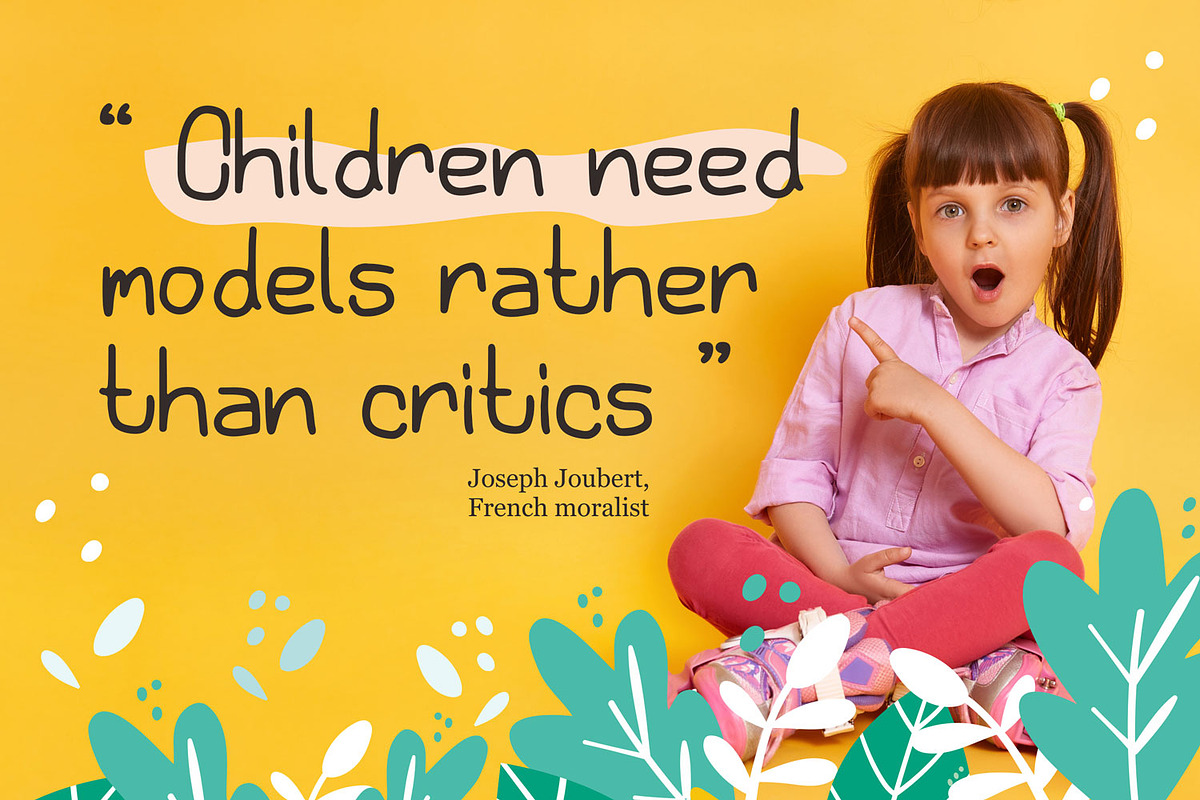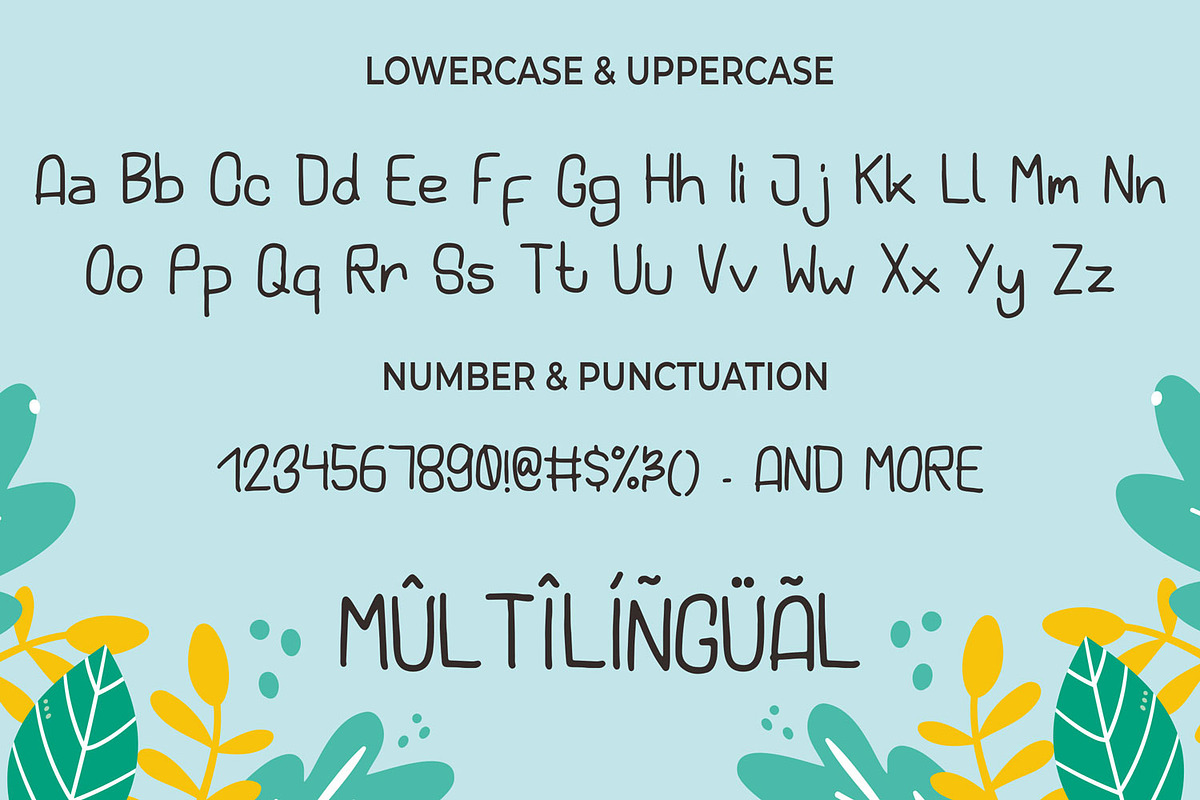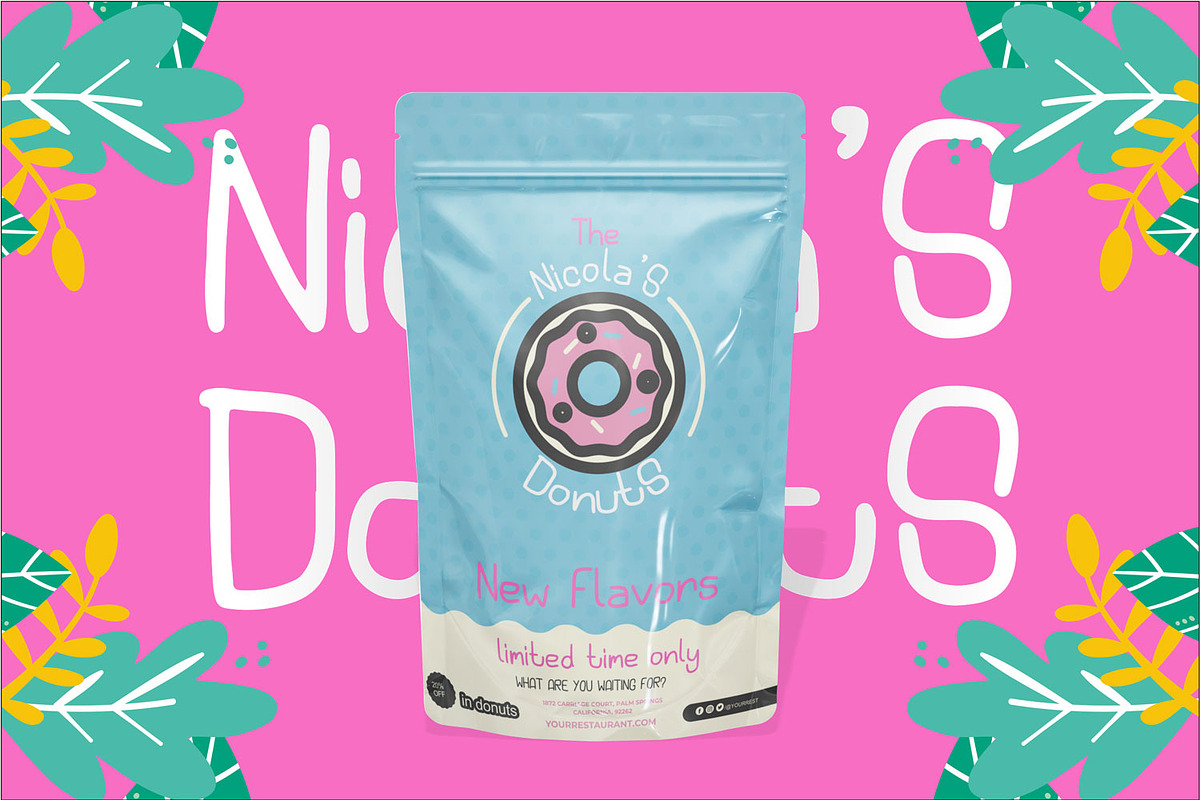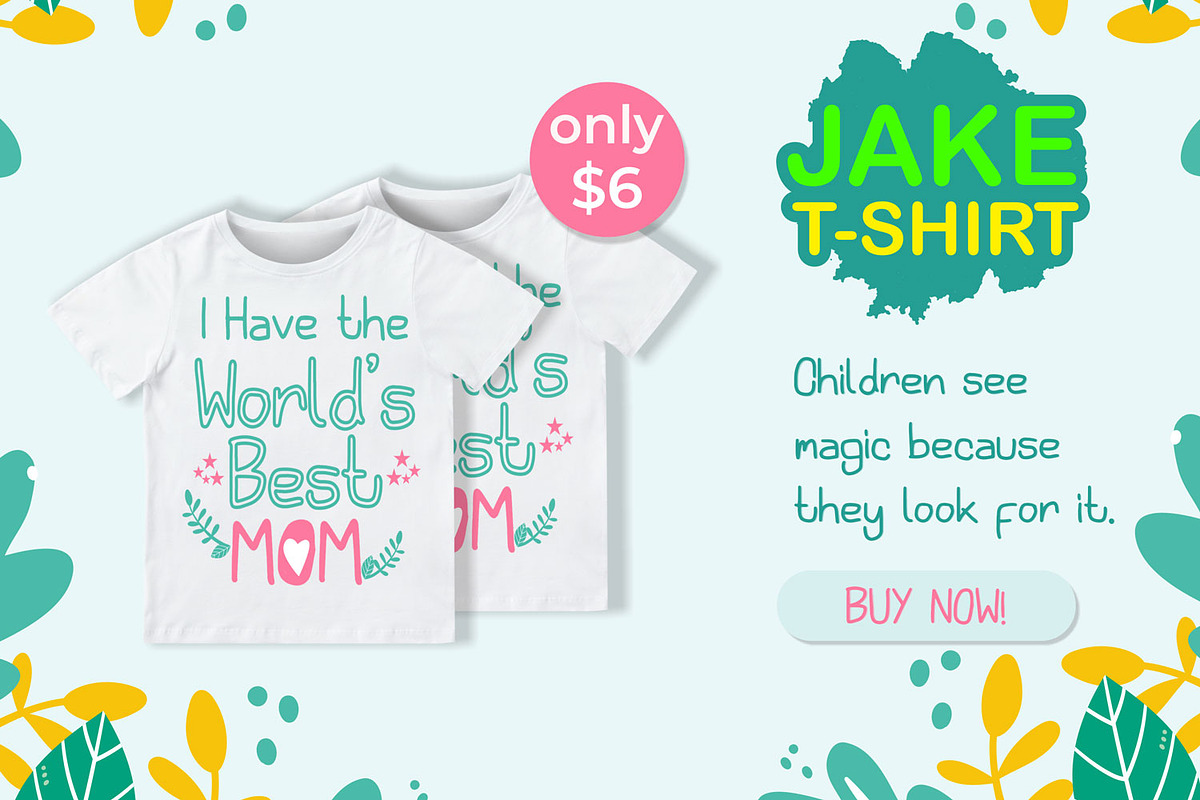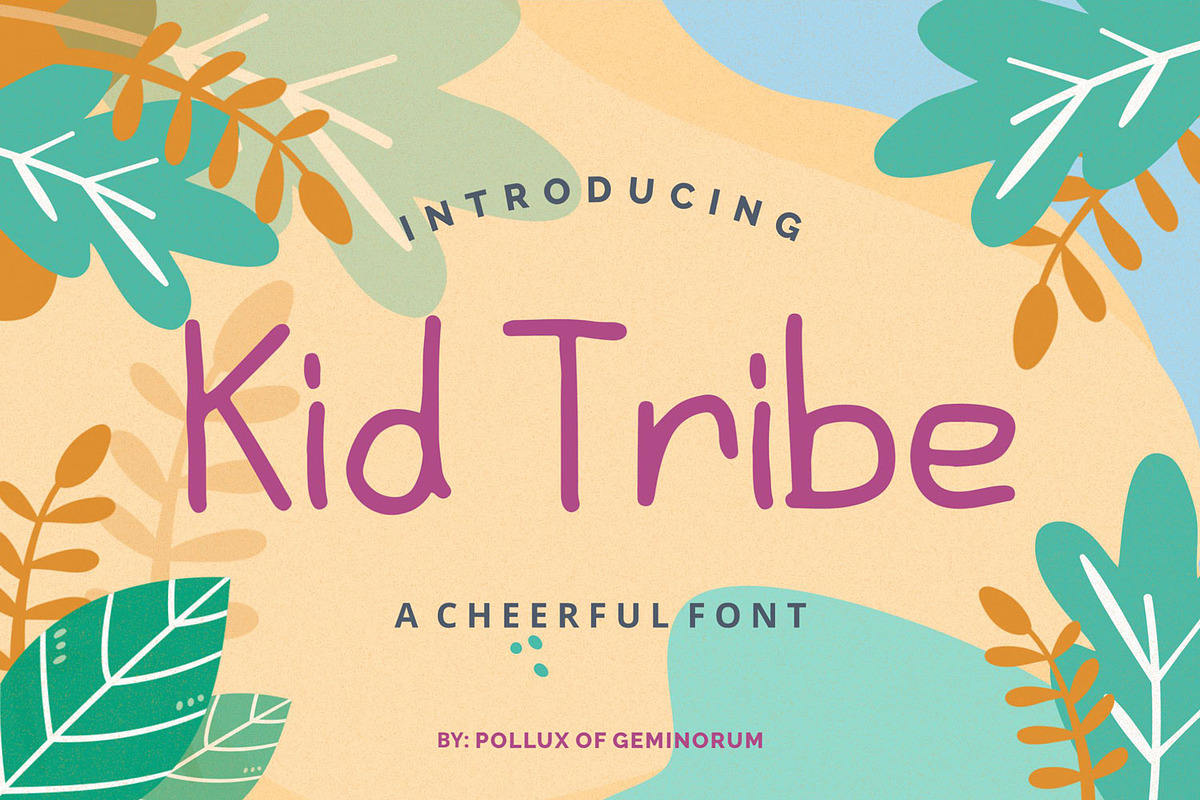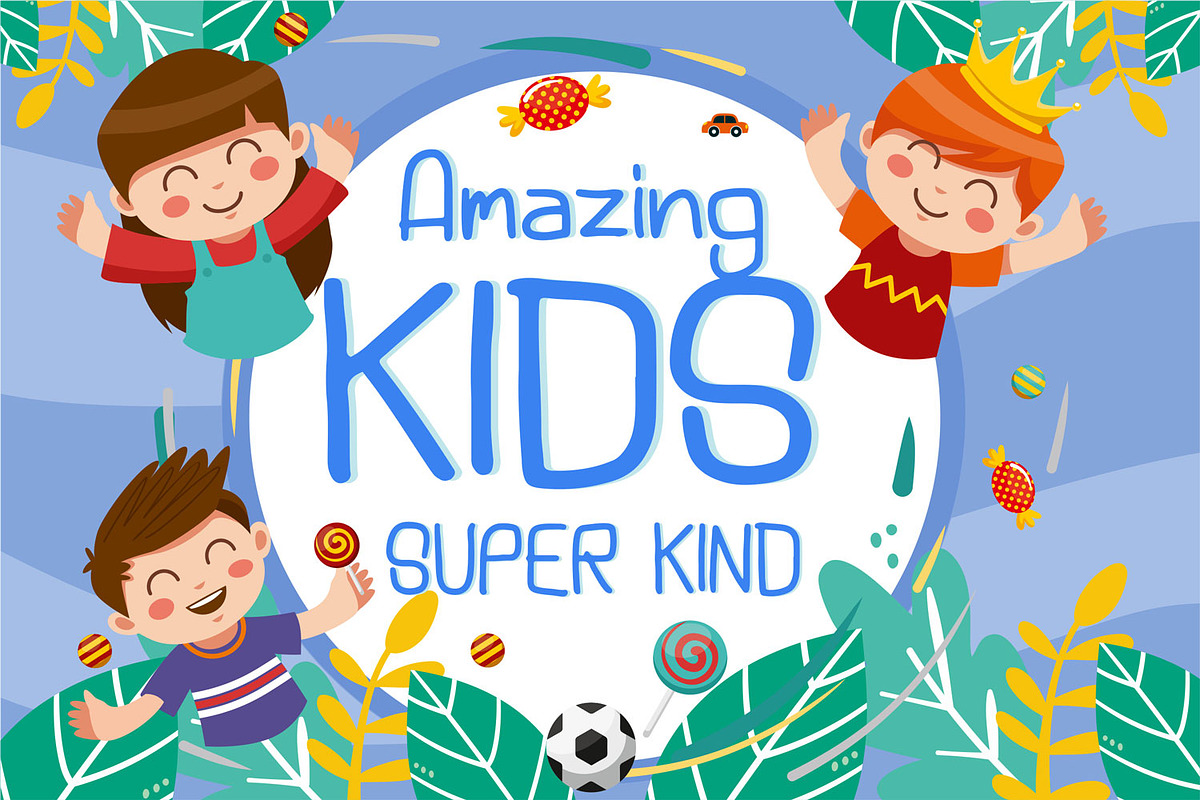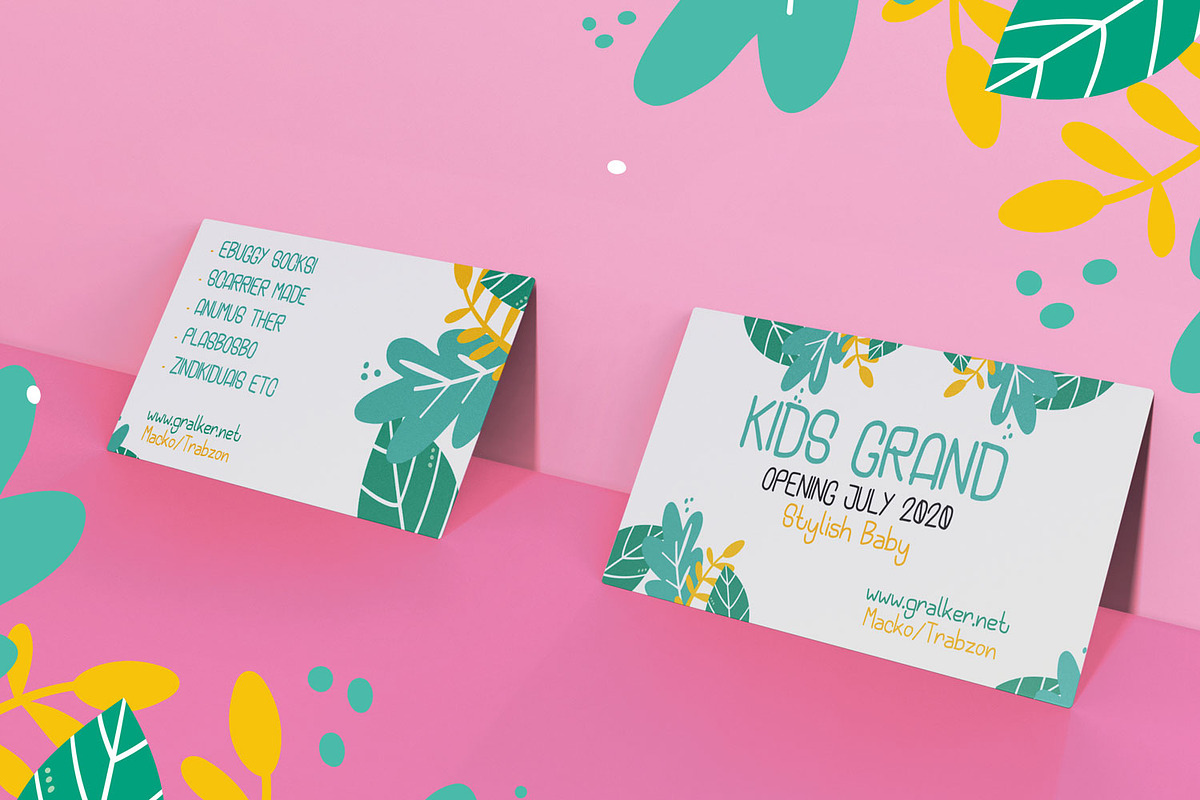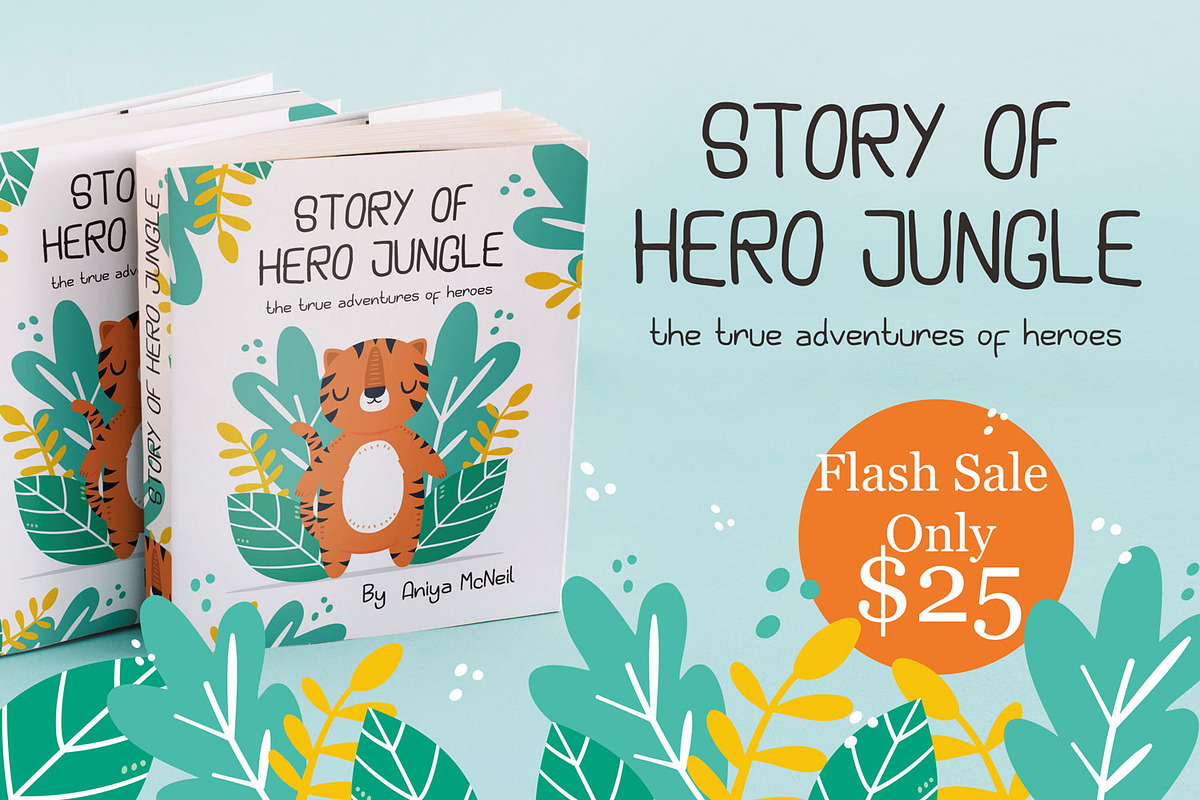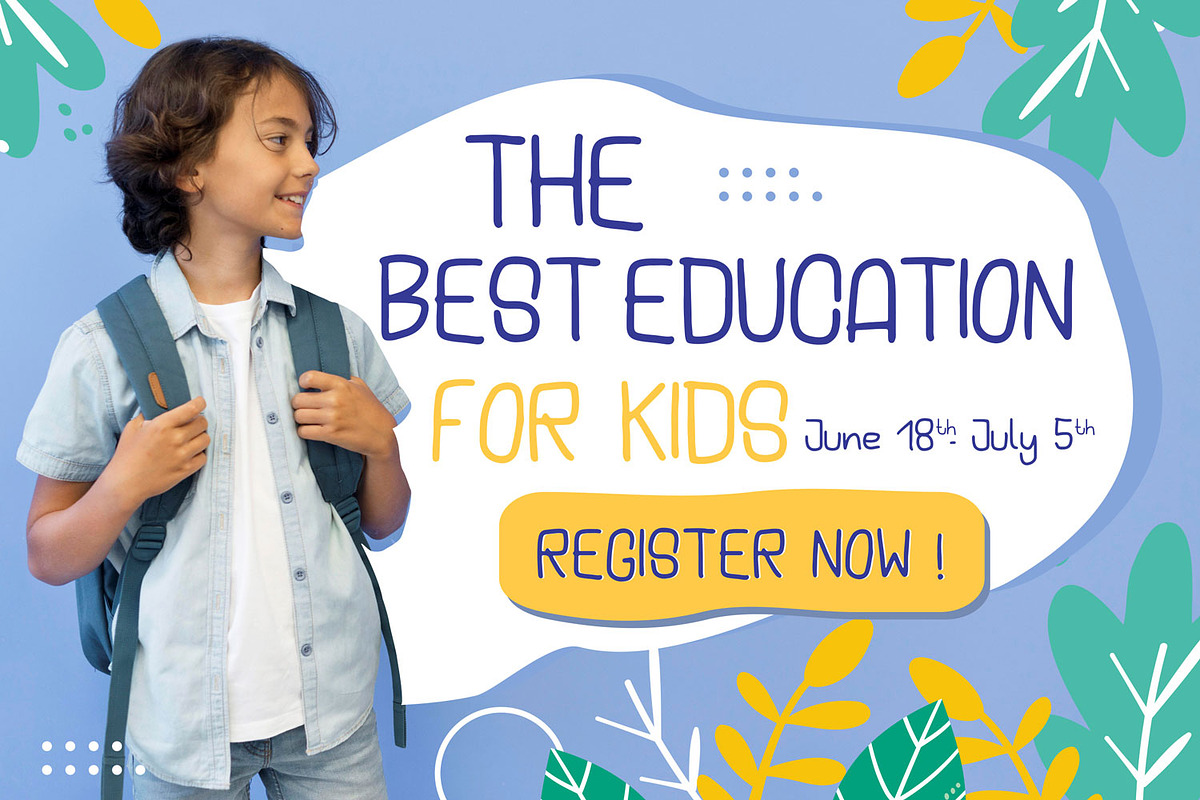
Kid Tribe - Cute Font
Kid Tribe is a simple and neat lettered display font. Add this font to your creative ideas and notice how it will make them stand out! This cheerful font that suitable for kids' stuff such as logo, invitation, banner, social media, poster, tvc etc.